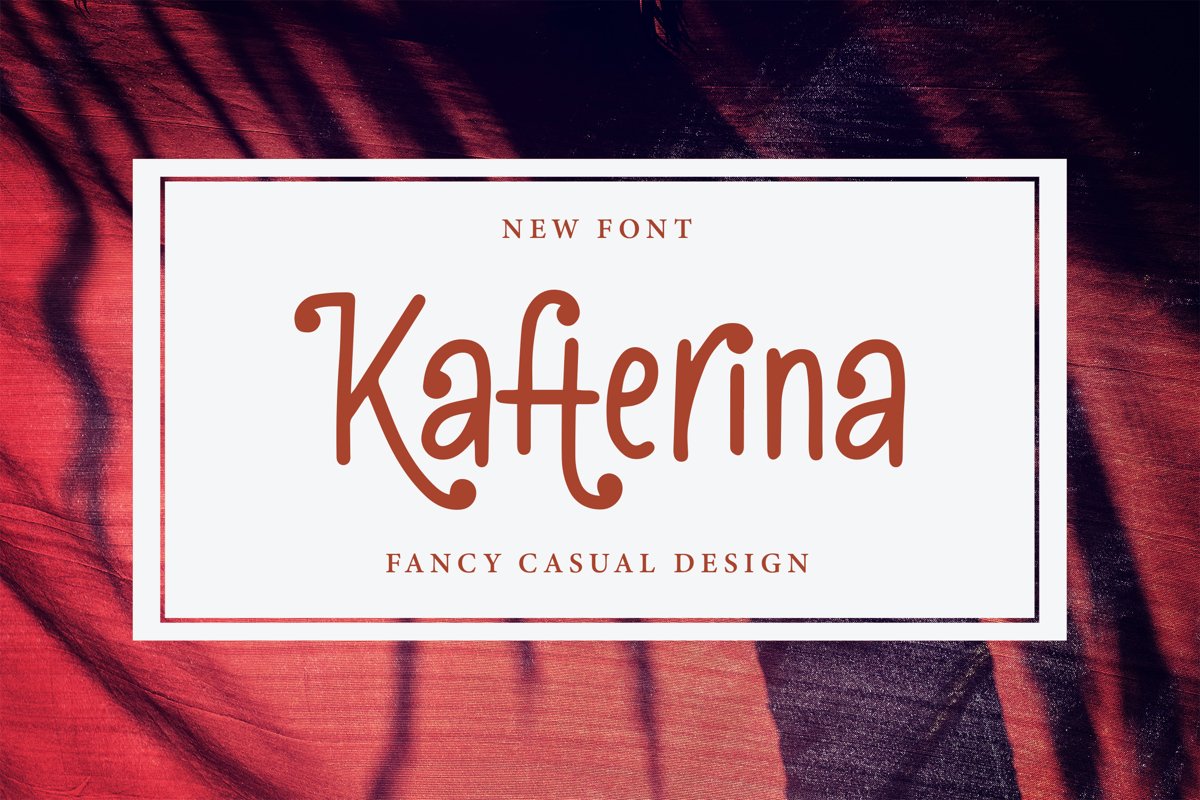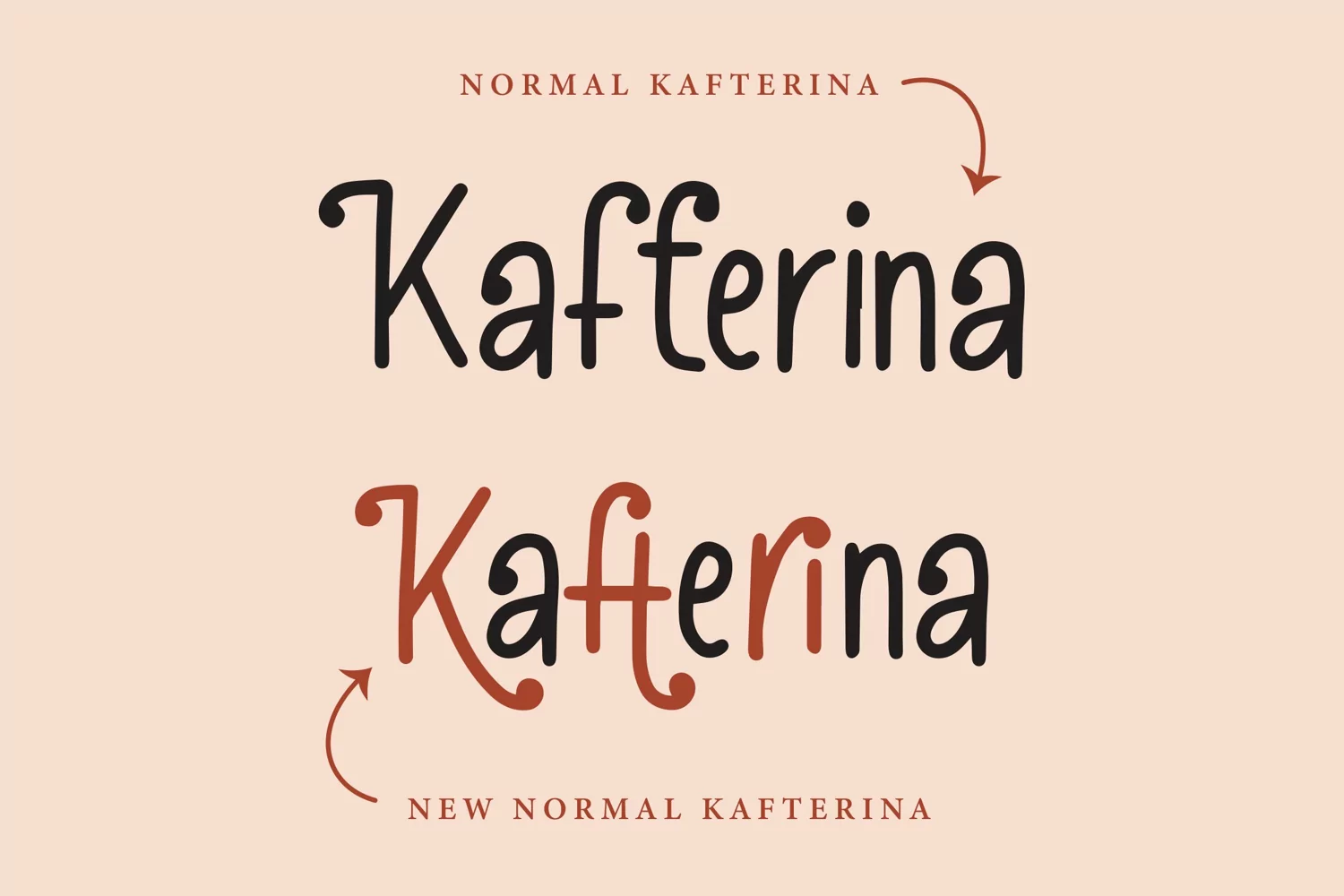
Kafterina - Fancy Casual Fonts that contain lowercase, uppercase, symbol, and also support multi language. There’s a lot ligatures in this font. This Font also comes with ligatures, alternates and many more. this font suitable for fashion, branding, catalog and other design what you want.
Kafterina